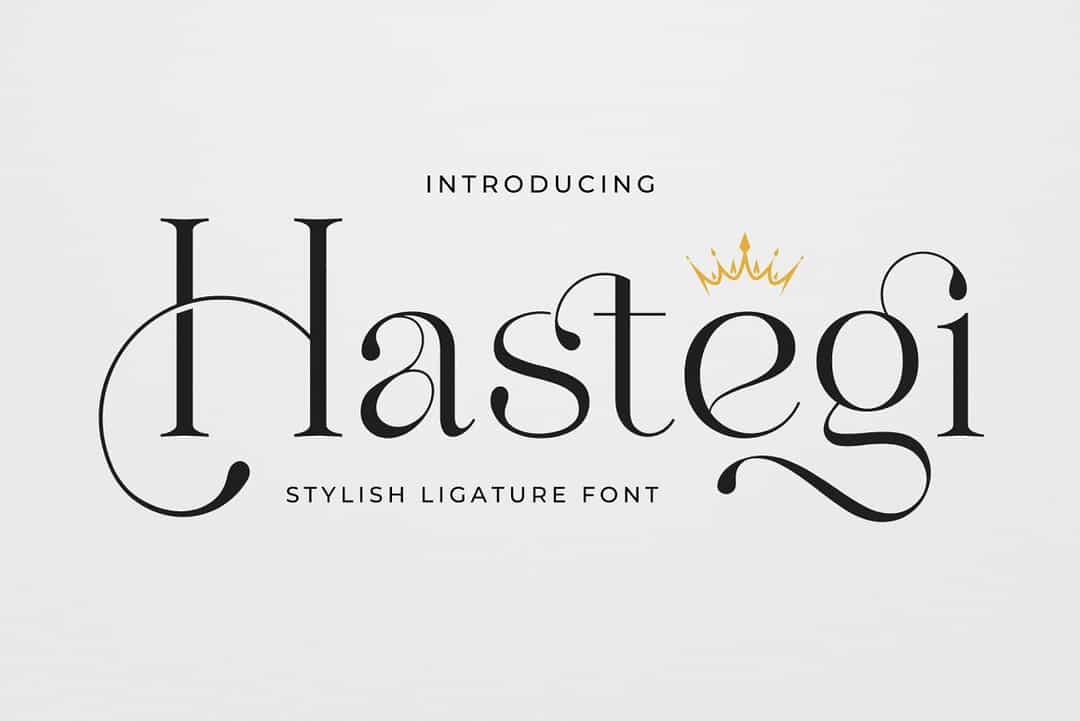
“Hastegi” is an elegant serif typeface that elevates typography thanks to its stunning ligatures. Combining classic elegance with modern edge, “Hastegi” delivers an eye-catching and refined appearance perfect for projects requiring high-end finishes and finishes. Perfectly complementing its elegant serif style are its beautiful ligatures which create an unparalleled visual experience for readers.